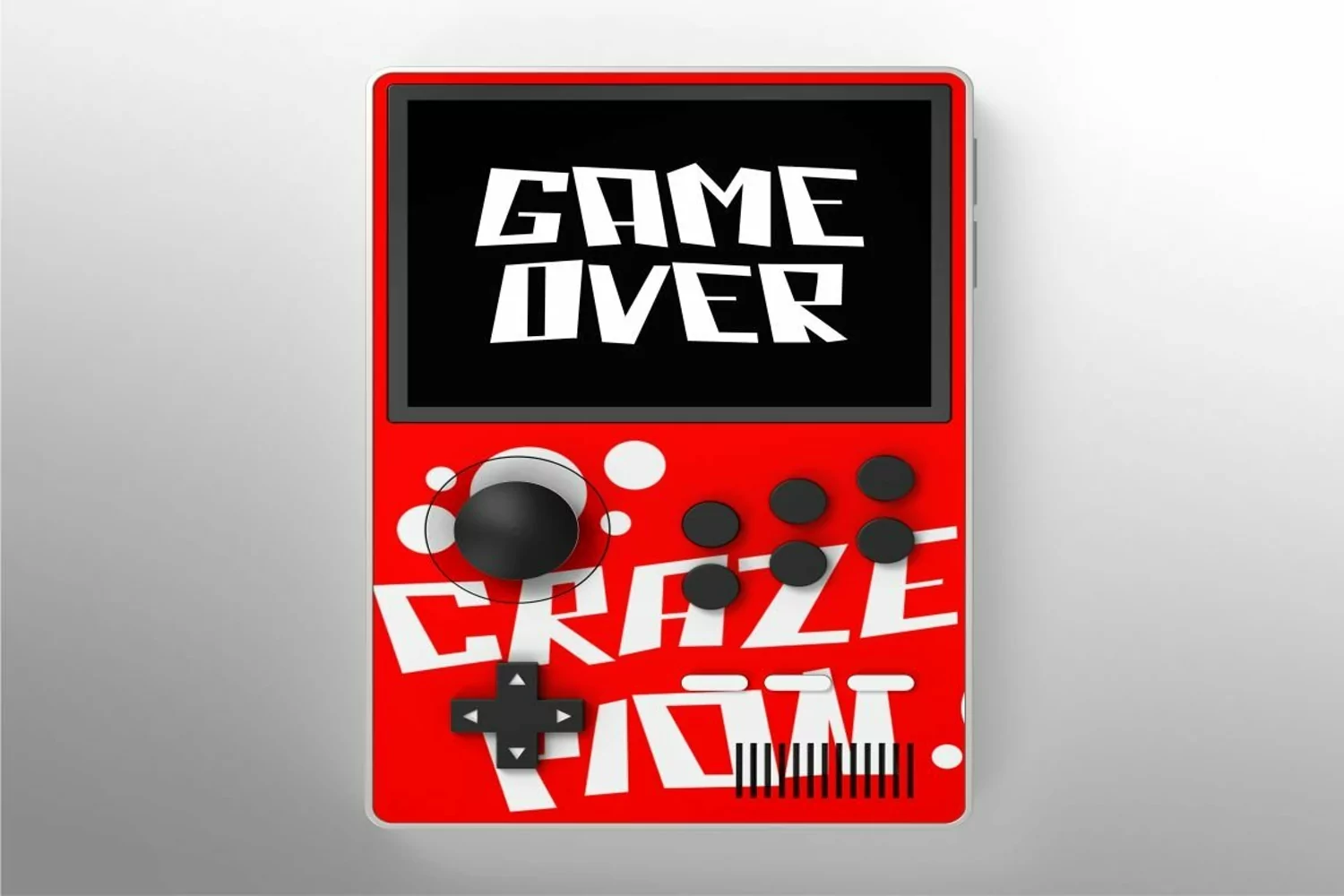
Hoicky - Quirky Irregular Font
Introducing Hoicky, a quirky irregular font. Each character in this font has a different tilt angle, plus there is a ligature that makes this font even more unique. Hoicky also perfect for branding design, posters, apparel, logotype, header, quote, invitation, greeting card, cover, poster, fashion design and any more.
Come with lot of ligatures character, its help you to make great lettering. This font is also support multi language.